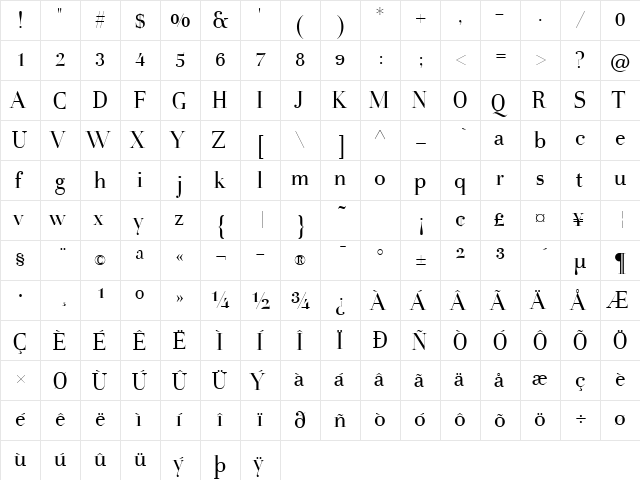
HolmenHeadlineTF-Regular Regular
| Foundry | FSI FontShop International GmbH |
| Designer | Per Jorgensen |
Design Context for HolmenHeadlineTF-Regular Typeface
HolmenHeadlineTF-Regular takes a measured approach to typography — its balanced proportions and neutral character make it a reliable workhorse for both digital and print work.
Pro Tip: Pair HolmenHeadlineTF-Regular with a font of contrasting weight or personality to build a more expressive typographic hierarchy.